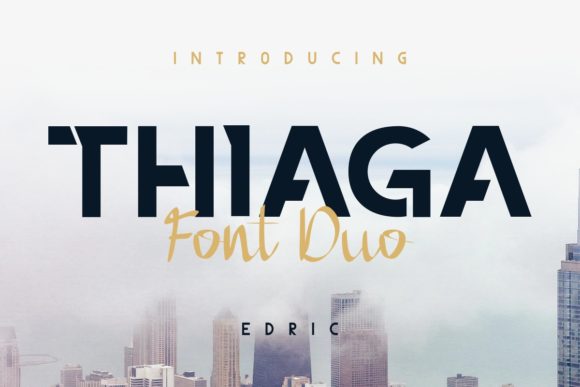
Prepare yourself for the dynamic duo of fonts that's set to transform your creative endeavors! Introducing the Thiaga Duo Font, a sensational sans serif font family, meticulously crafted by the creative minds at EdricStudio. Buckle up for a typographic adventure that will ignite your passion for design.
Thiaga Duo Font isn't just a collection of letters; it's an artistic expression that brings life to your designs. With its bold and captivating personality, Thiaga Duo Font is engineered to seize attention and leave an unforgettable mark. Unleash your creativity and watch as your projects blossom into visual masterpieces.
Step into a realm where typography meets art. Thiaga Duo Font's graceful curves and sharp edges create a symphony of visual harmony. Its sans serif structure exudes a modern and sophisticated charm, making it the perfect choice for projects that demand impact and elegance.
With Thiaga Duo Font, you'll discover a font duo that's as versatile as it is captivating. Its bold strokes add a touch of drama to headlines, logos, and posters, while its softer lines bring a touch of grace to body text and paragraphs. Whether you're crafting digital designs or print masterpieces, Thiaga Duo Font adapts seamlessly to your vision.
Indulge in the creative possibilities that await you with Thiaga Duo Font. This font duo is not just a tool; it's an extension of your creative self. Embrace the power of typography and watch as Thiaga Duo Font transforms your designs into expressions of pure brilliance. Don't settle for ordinary fonts; choose Thiaga Duo Font and unlock a world of typographic wonders.
Let your imagination soar with Thiaga Duo Font! Its charm will add a touch of magic to your designs, while its versatility will empower you to explore infinite creative possibilities. Dive into the world of typography with Thiaga Duo Font and let your creativity shine!